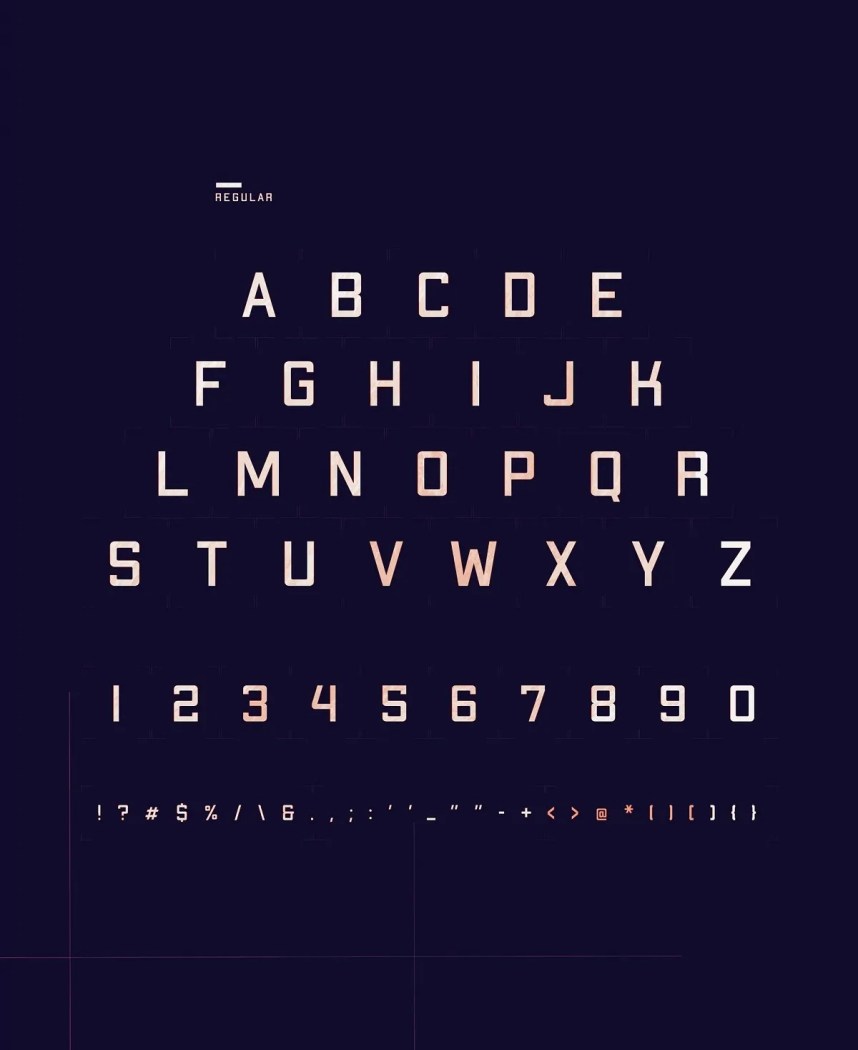
Apex Mk2 Sans Serif Font is a bold hand-pressed type, with a raw aesthetic and solid industrial style. Inspired by classic geometric sans serif typefaces and workhorse athletic block type. Simplicity of form gives it flexibility for a broad range of uses, while its geometric frame provides the foundation for its strength and decisive tone.